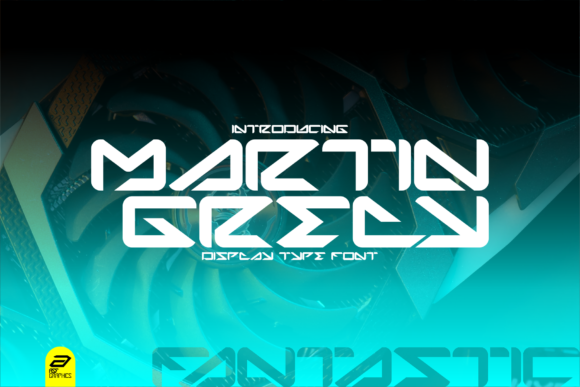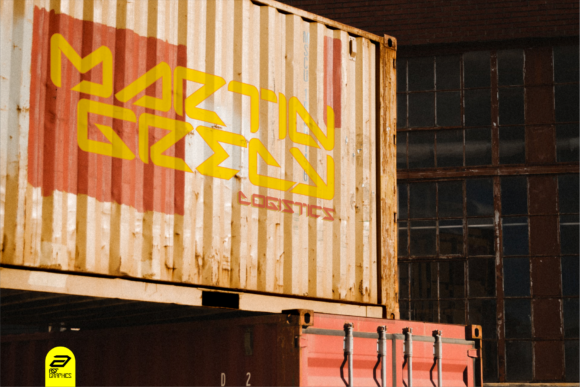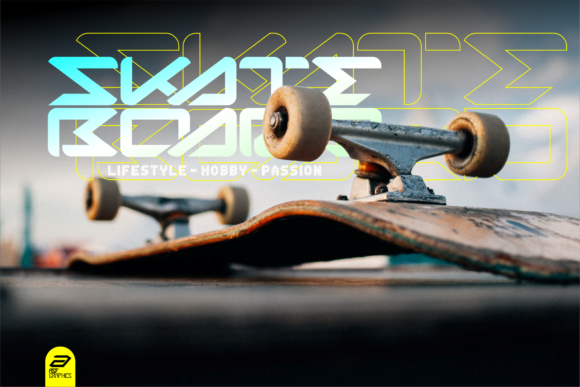
Martin Grely Font
Martin Grely is a cool, bold and robotic display font. This font is ideal for writing web designs, business cards, or pretty much anything else that requires a unique touch.